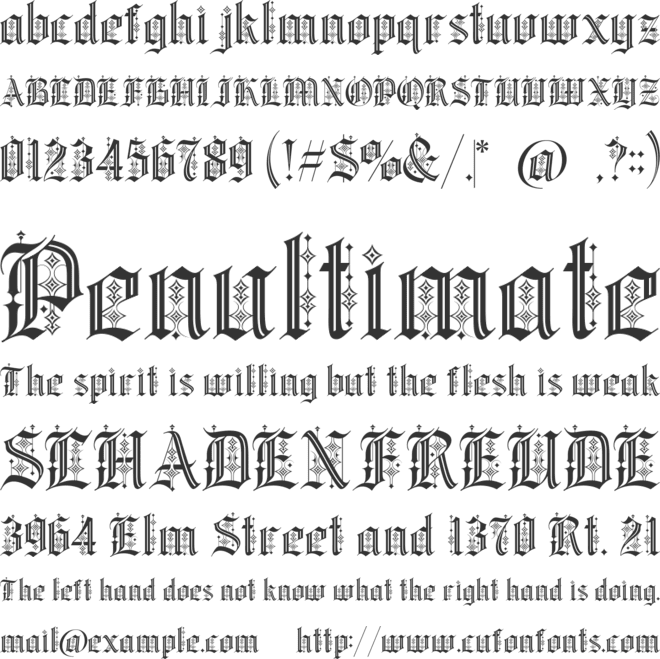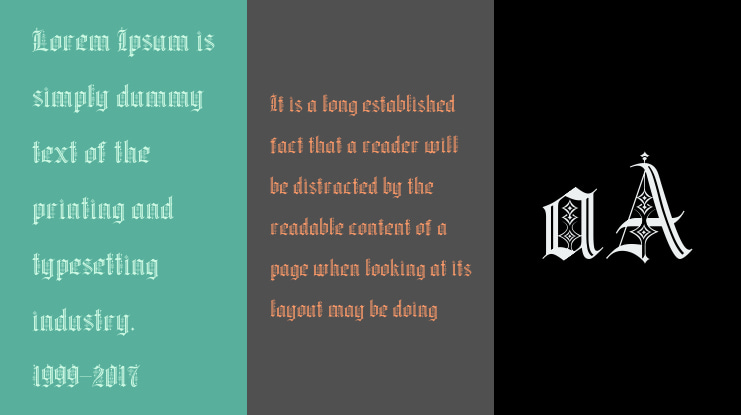
Magic Round Font
Ni Kadek Ema Pritadea
Magic Round – A Mystical Gothic Typeface
Unveil the arcane beauty of Magic Round, a premium decorative typeface that masterfully blends classic blackletter elegance with modern, mystical flourishes. Designed for projects that demand a bold, dark, and enchanting aesthetic, Magic Round is your ultimate tool for creating standout typography.
Whether you are designing striking streetwear apparel, dark futuristic posters, esoteric brand identities, or captivating album art, this font delivers an unforgettable visual impact. The intricate details, sharp serifs, and sweeping letterforms give you endless creative freedom to craft bespoke typographic art that feels both ancient and cutting-edge.